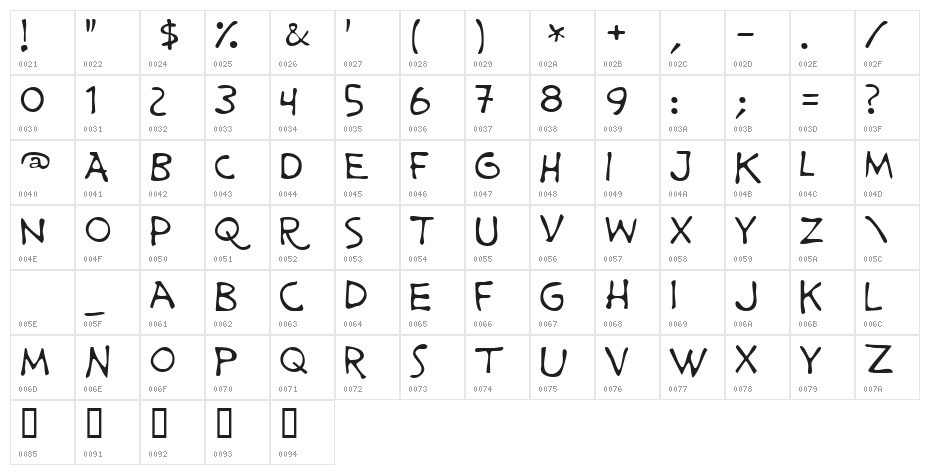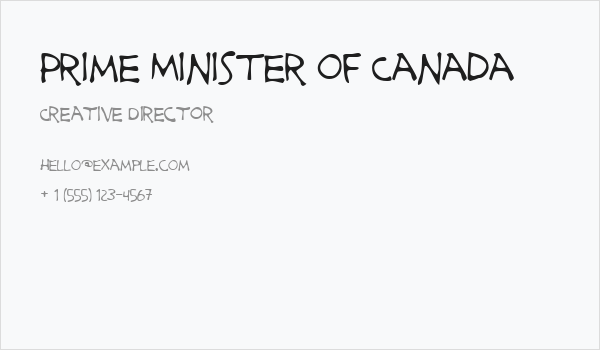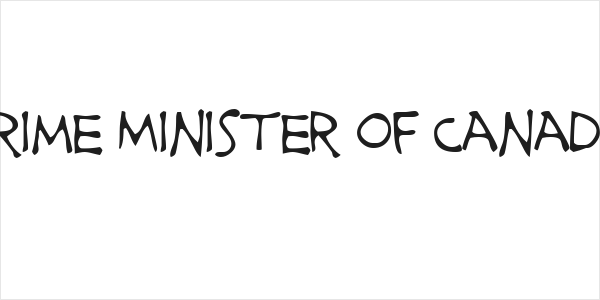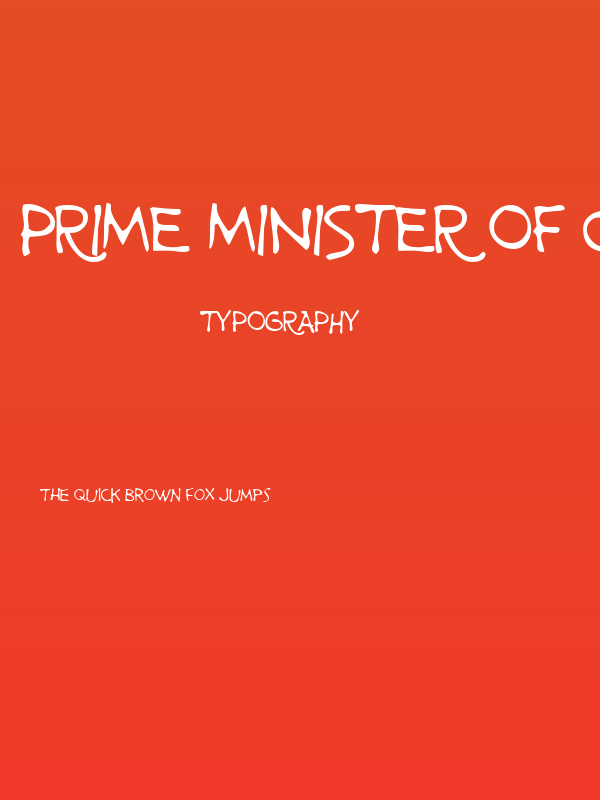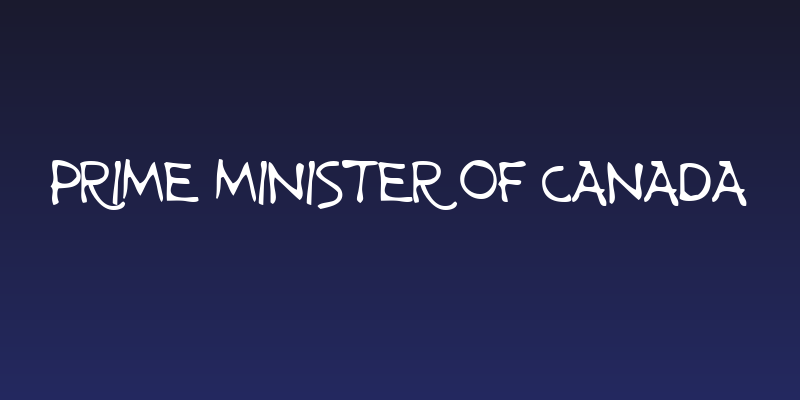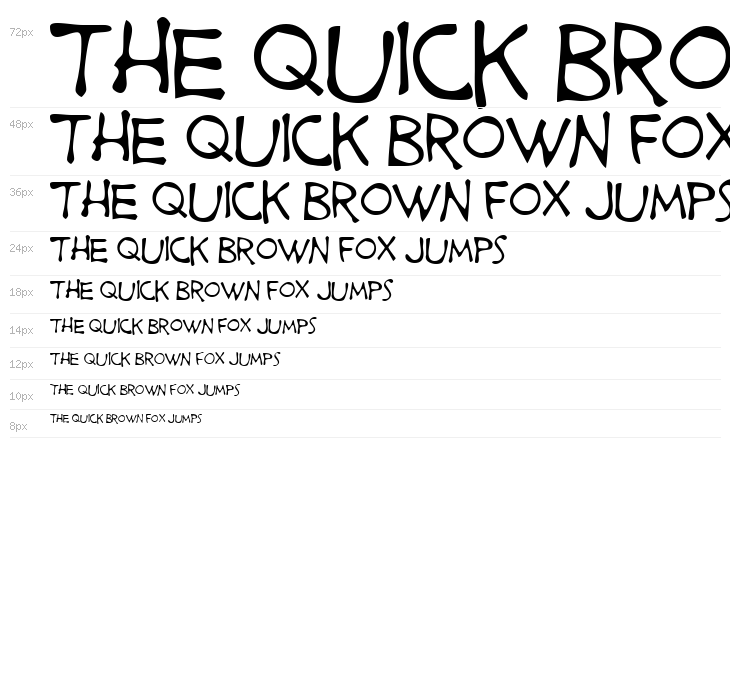
Prime Minister of Canada Font
Prime Minister of Canada Description
This font features a playful and whimsical design, characterized by its irregular and slightly wavy strokes. The letters have a hand-drawn appearance, adding a casual and informal touch to any text. The uppercase and lowercase letters maintain a consistent style, with rounded edges and varying stroke widths that create a dynamic and lively look. The numerals and special characters follow the same playful aesthetic, making the font versatile for creative projects. Its unique style is perfect for capturing attention and conveying a sense of fun and creativity.
| Proposed Projects | Ideal for children's books, greeting cards, playful branding, and creative posters. |